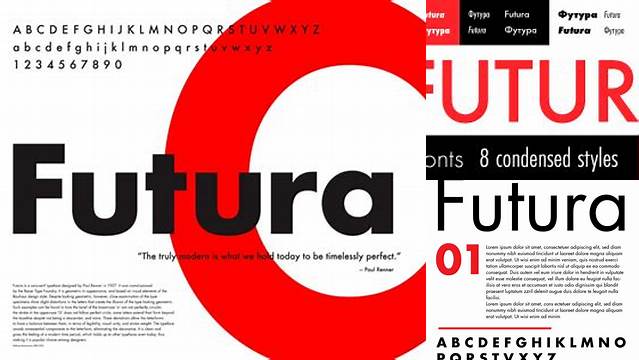
Futura Font: History, Uses & Design Guide
Hey guys! Ever wondered about the fonts that silently shape our world? Well, let's dive headfirst into Futura, a typeface that's not just a font, but a design icon. This guide is your all-access pass to understanding Futura – its history, characteristics, and how it's used today. Get ready to geek out with me because this is going to be a fun ride!
The Genesis of Futura: A Bauhaus Masterpiece
Futura was born in the vibrant era of the 1920s, a time of artistic and societal shifts. Paul Renner, a German typographer, designed Futura. Influenced by the principles of the Bauhaus, a school of art and design that emphasized functionality and geometric forms, Renner aimed to create a typeface that was modern, clean, and easily legible. He wasn't just designing a font; he was crafting a visual language that reflected the spirit of the machine age and the pursuit of a universal aesthetic. Renner's vision was to strip away the ornamentation that had dominated typography for centuries and embrace a pure, geometric approach. This radical shift was a reflection of the broader artistic movements of the time, which sought to break from traditional forms and embrace simplicity and efficiency.
The design of Futura is based on geometric shapes: perfect circles, triangles, and squares. This gives it a distinctive, modern look that sets it apart from older, more ornate typefaces. The font's structure is highly rational and functional. The strokes are of a consistent weight, contributing to the overall clarity and legibility of the typeface. Renner's goal was to create a font that could be used across a variety of media and in different sizes while maintaining its aesthetic appeal and readability. The initial release of Futura in 1927 by the Bauer Type Foundry marked the beginning of its global journey, quickly becoming a favorite among designers, advertisers, and businesses worldwide. The font's simplicity made it incredibly versatile. It was easily adapted to various applications, from print to signage, and its modern aesthetic resonated with the design sensibilities of the time.
Futura's impact on design can't be overstated. Its influence is visible in countless logos, posters, and publications. The font quickly became a symbol of modernity, efficiency, and forward-thinking design. This aesthetic perfectly aligned with the industrial boom and the rise of consumer culture, making Futura a staple in advertising and branding. The typeface was also embraced by the Bauhaus school, where its geometric precision aligned with their design principles. The font's adaptability made it the preferred choice for a wide range of applications, from book covers to architectural plans. The adoption of Futura by businesses and brands made it a symbol of progress and sophistication. It's a testament to its timeless design and its enduring appeal across generations.
Key Characteristics of Futura
Alright, let's get into what makes Futura the design superstar it is. Firstly, its geometric shapes. The letterforms are built on circles, triangles, and squares. This lends to its incredibly clean and consistent look. The x-height (the height of lowercase letters) is quite tall, which boosts readability, especially in smaller sizes. It’s a font that works hard to be easily seen and understood.
Futura also boasts a distinctive appearance due to its consistent stroke weight. This means the lines that make up the letters have a uniform thickness, unlike some fonts where the strokes vary in thickness. This feature is crucial for the font's modern and streamlined aesthetic. The absence of serifs (the small decorative strokes found at the ends of letters) also contributes to its modern vibe and makes it incredibly versatile. The font’s straightforward approach is a breath of fresh air in a design world often cluttered with ornate or complex typography. The space inside the letters, or counter spaces, is also thoughtfully designed, ensuring that the font appears balanced and visually pleasing. This combination of features gives Futura its unique character.
Another awesome aspect is its versatility. You can slap it on just about anything. Its clean look means it’s good for headlines, body text, and even branding. The font's ability to adapt to different sizes and contexts makes it a reliable choice. The font family includes a wide range of weights and styles, from light to bold, and condensed to extended versions. These variations allow designers to create a cohesive visual identity across all their designs. The font's versatility extends to digital and print media. Whether it’s a sleek website, a striking poster, or a beautifully designed book, Futura always makes an impact.
Then there's the overall feeling. Futura evokes a sense of modernity, efficiency, and sophistication. It's a font that feels smart and forward-thinking without being overly showy. The font’s ability to communicate a sense of professionalism and trustworthiness makes it perfect for brands looking to project an image of competence and innovation. The simplicity of Futura helps to focus the attention on the message, rather than the font itself. This characteristic makes it an excellent choice for any design project where clarity and readability are paramount.
Futura in Action: Real-World Examples
So, where have we seen Futura strut its stuff? The answer, my friends, is everywhere! Futura has become so popular that you can't not notice it! Think about some of the world's biggest brands and iconic designs.
- Logos: Brands like Volkswagen and Supreme have chosen Futura for their logos. The clean lines and modern feel of Futura perfectly align with their branding strategies.
- Advertising: Futura has appeared in numerous ad campaigns. Its readability and strong visual appeal make it ideal for grabbing attention. Its use in advertising continues to be popular as it resonates with modern consumers.
- Print: From book covers to magazines, Futura is a top choice, thanks to its legibility and aesthetic appeal. Its versatility makes it suitable for headlines, body text, and everything in between. The font's ability to adapt to different layouts and designs makes it a versatile option for the printed medium.
- Web Design: While it may not be as prevalent as some other fonts on the web, it's still used to create a clean and modern look. The geometric shapes translate well to digital screens, making Futura a reliable option. It helps to improve the user experience by maintaining readability and a sophisticated look across different devices.
The Enduring Legacy of Futura
Futura isn't just a font; it's a statement. It is one of the most widely used typefaces of all time. Its timeless design has solidified its place in the design world. From its Bauhaus roots to its modern applications, Futura continues to be a symbol of elegance, functionality, and forward-thinking design. It's a testament to the power of great design and its ability to transcend time and trends. As designers and communicators, we can learn from Futura. The best fonts are not just aesthetically pleasing; they must also perform in a way that supports the message. It should be a font that is easy to read and creates a design that is cohesive and visually striking. This iconic font has earned its place as a design legend, and its future looks as bright as ever!